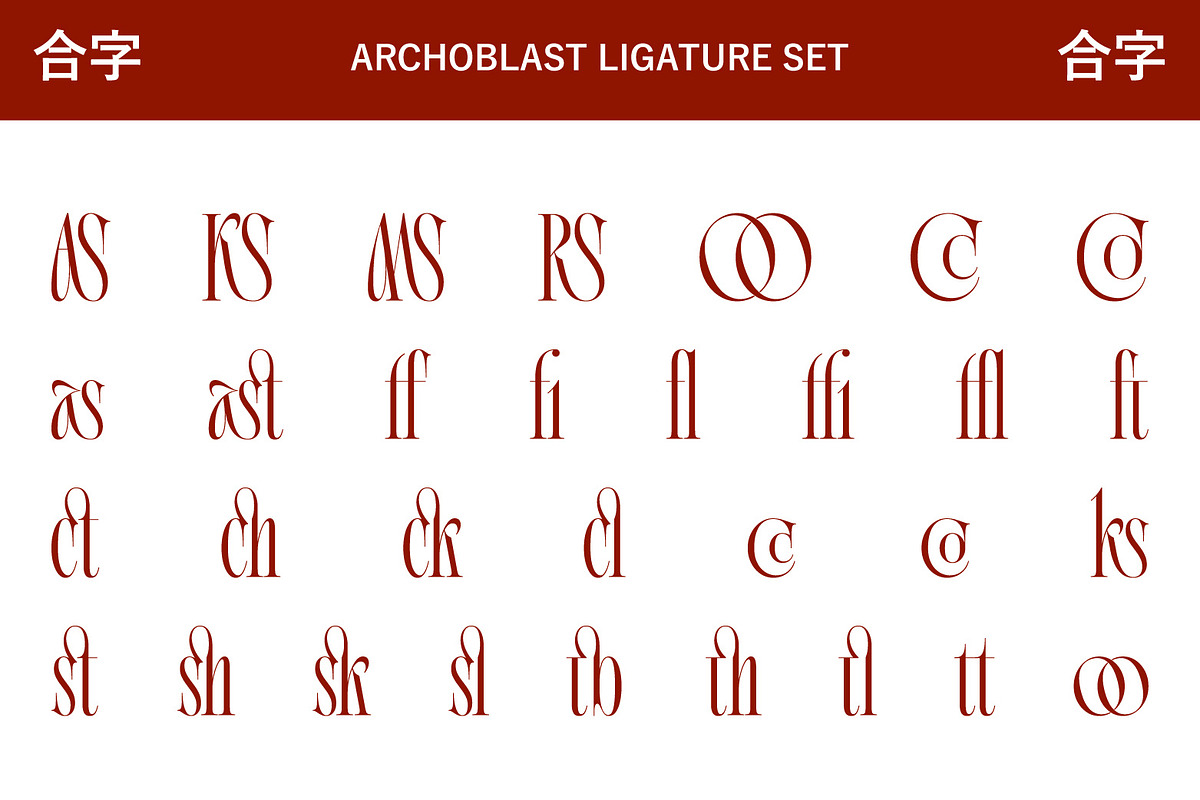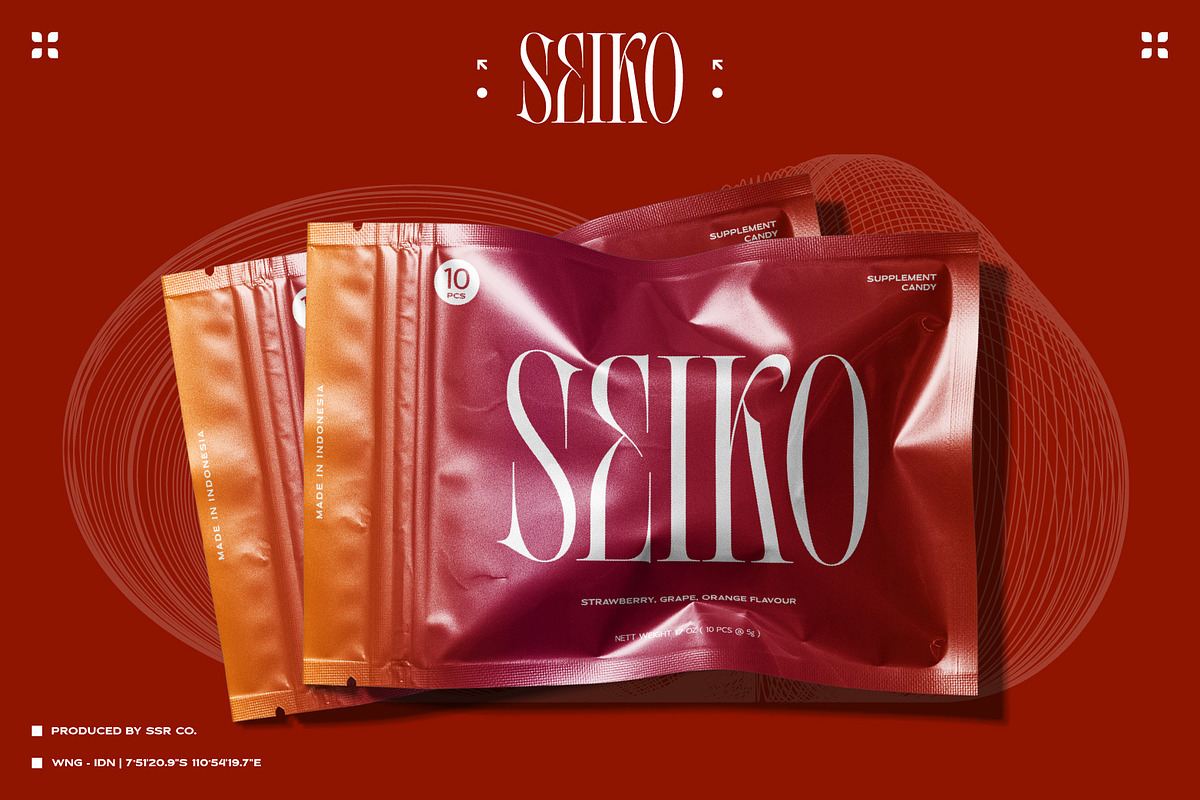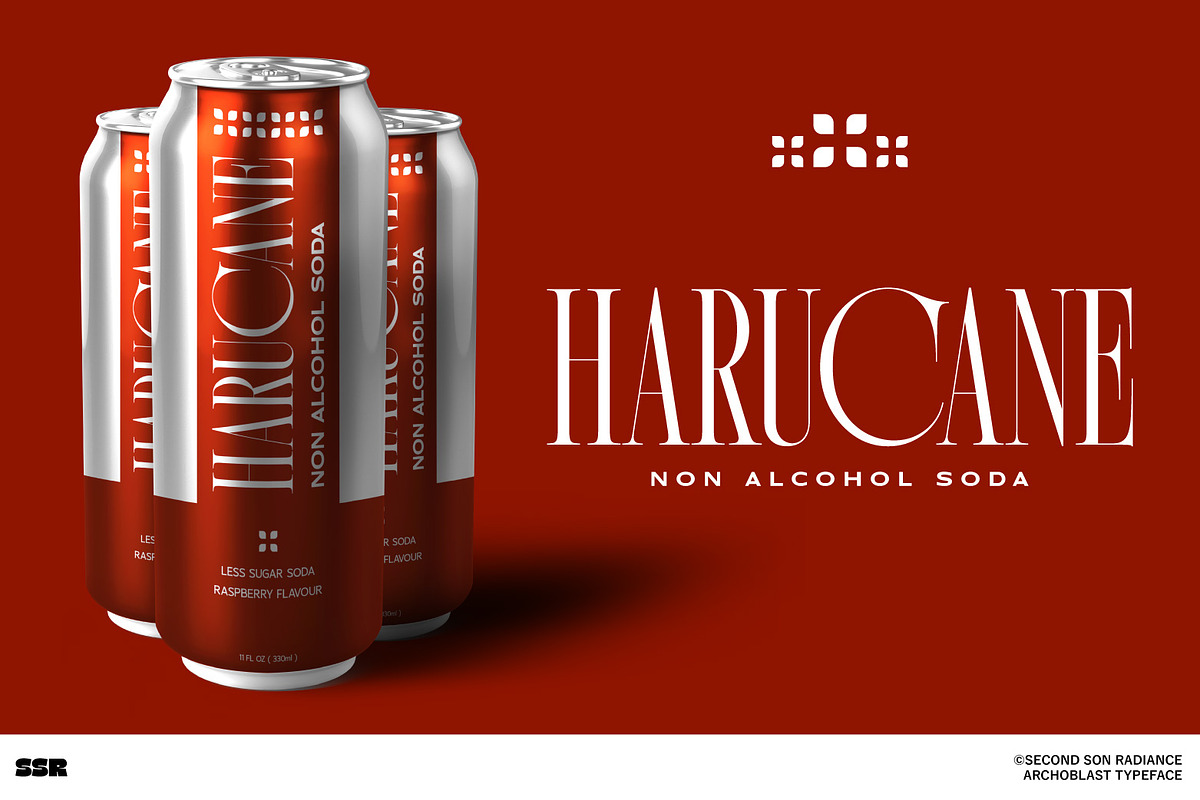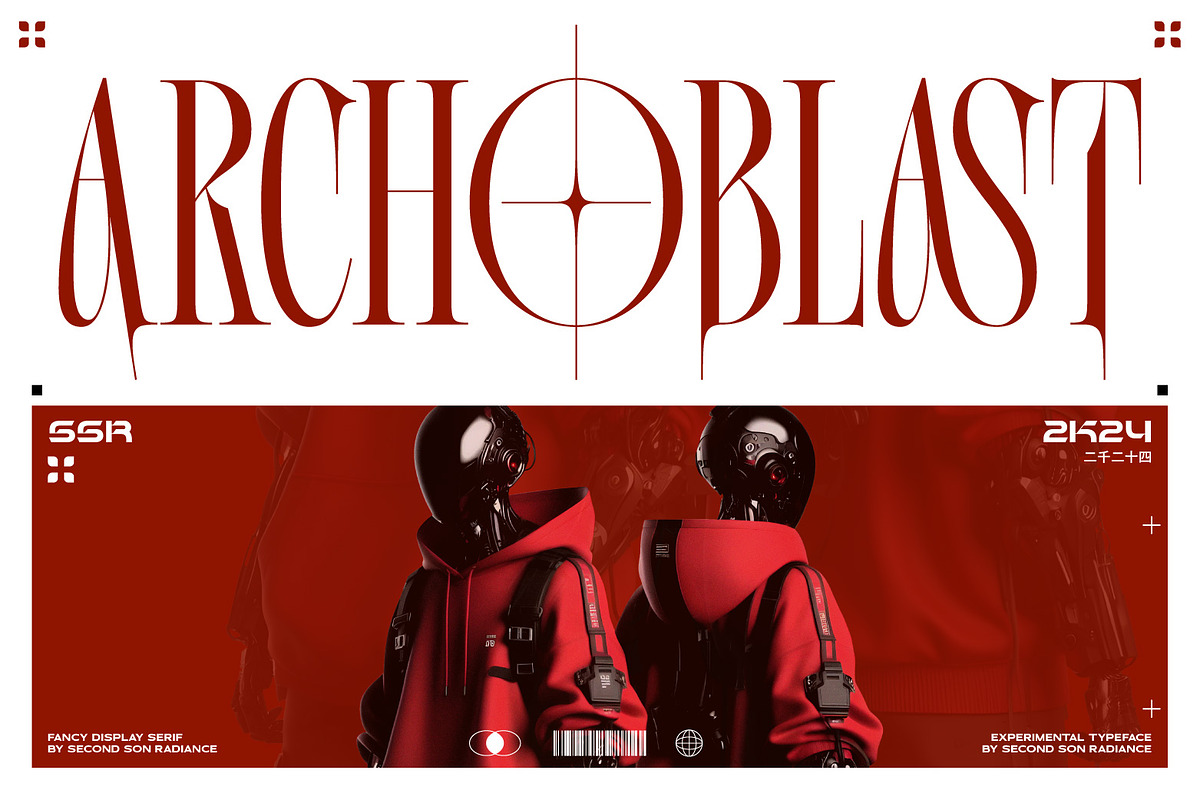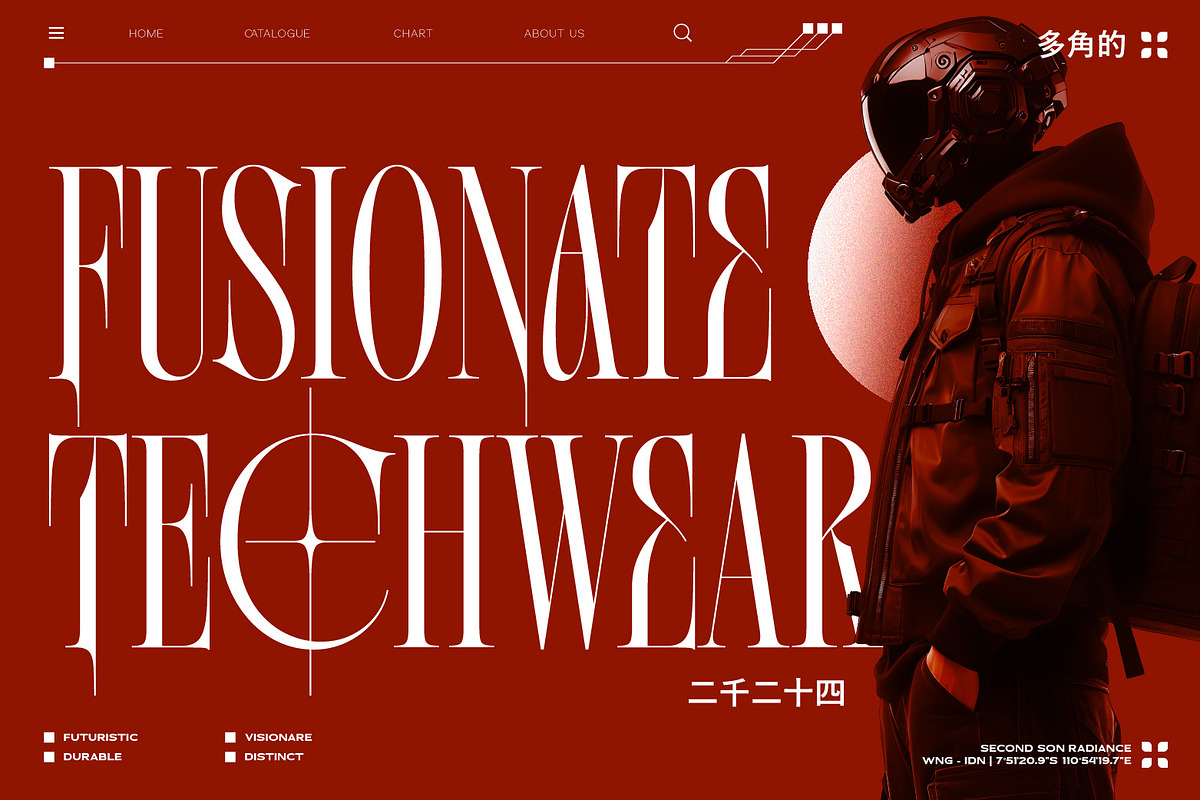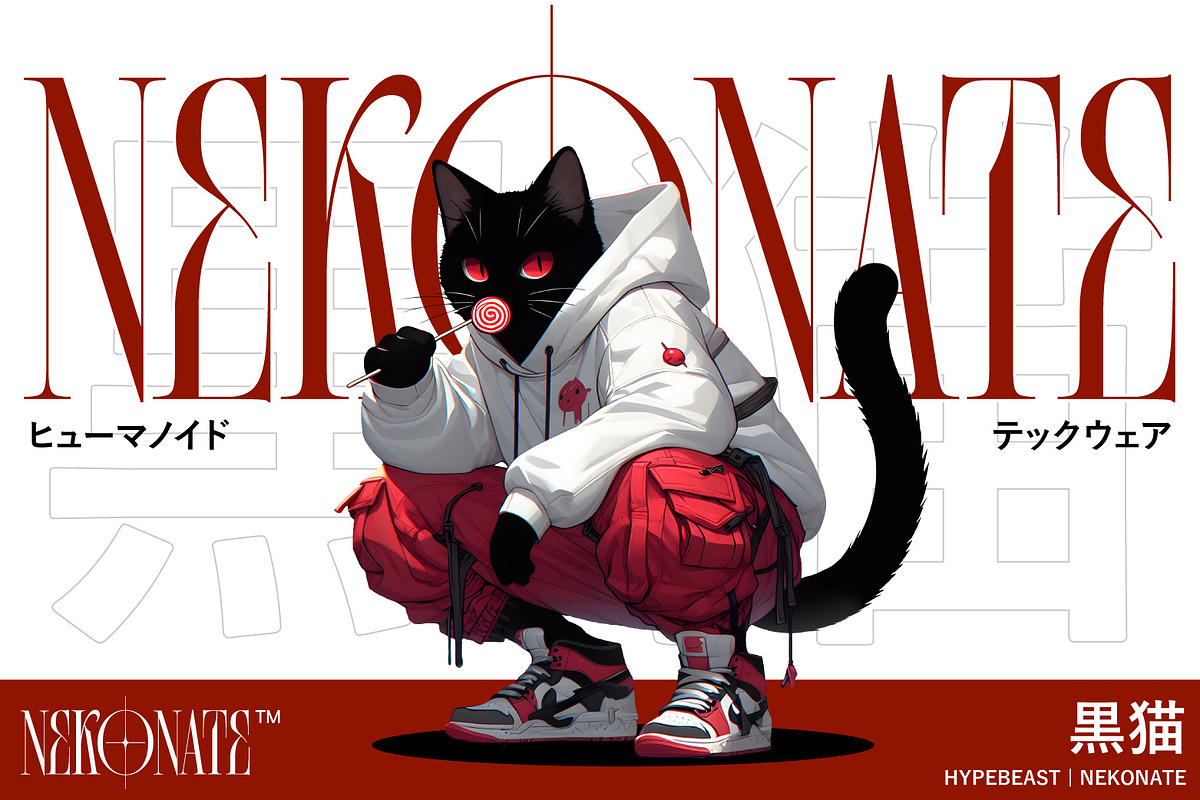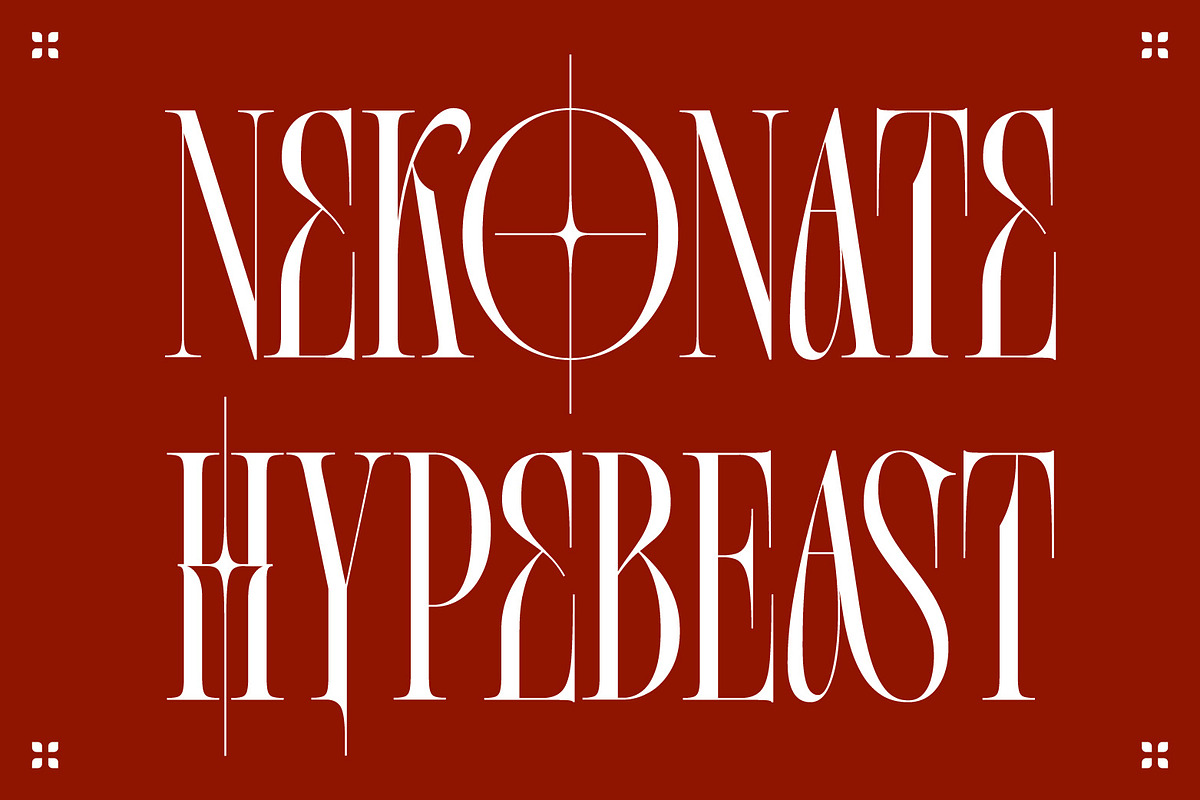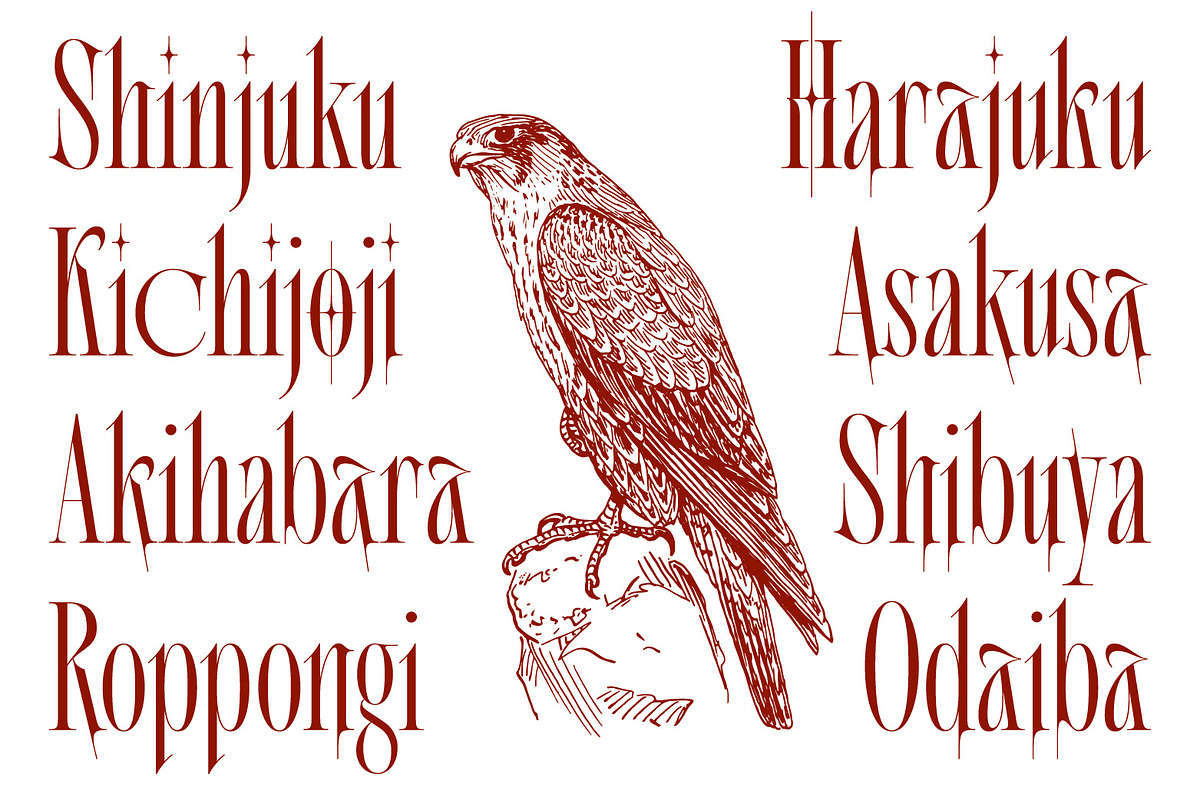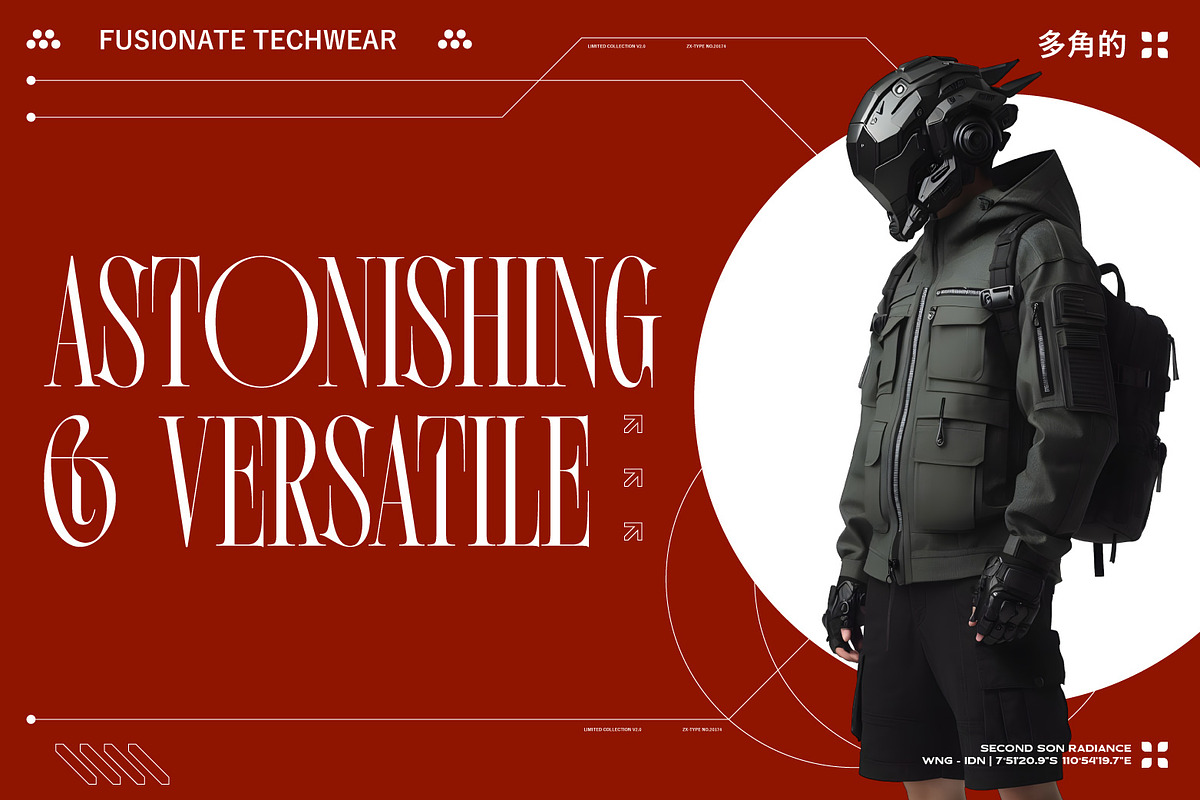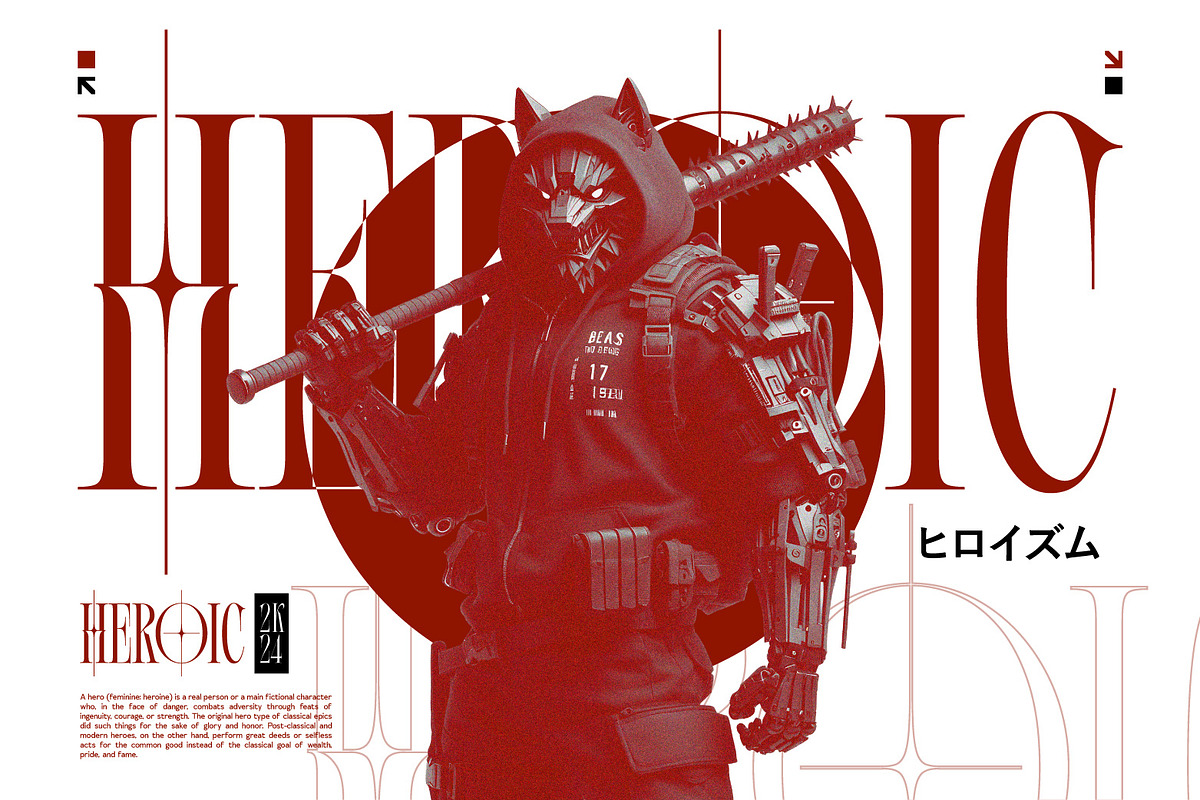
SS Archoblast - Fancy Display Serif
Achoblast is a fancy display serif, it’s an experimental font that uses futuristic elements, elegant characteristics, and has a japanese vibes in it. Specially designed for display design and logo branding needs. Archoblast is very suitable for use in logotypes, design posters, product designs, modern advertising, mecha and futuristic designs, etc. It has more than 100 glyphs combined between alternate and ligature, suitable for mix and match according to your design needs.